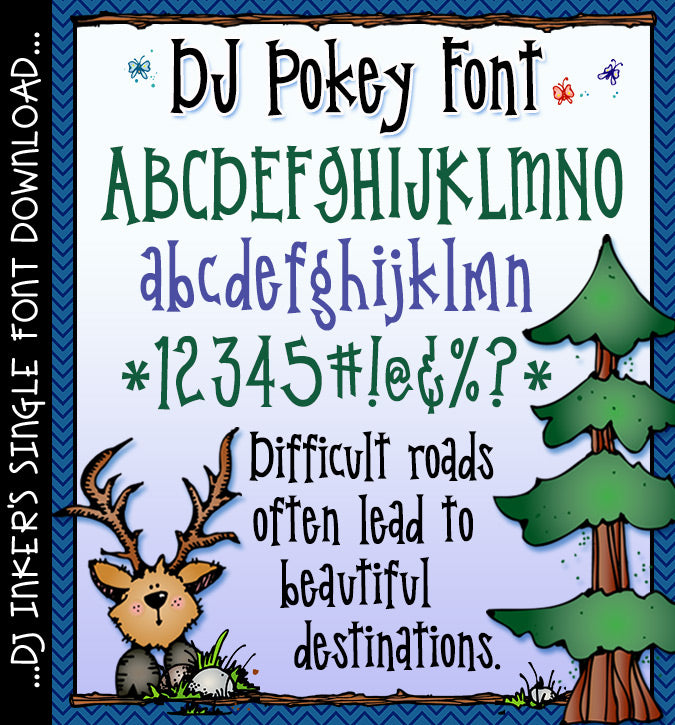
DJ Pokey Font Download
Looking for a typeface that's as bold as your ideas? DJ Pokey strikes the perfect balance between clean, sharp lines and a playful charm that will really make your projects pop! Whether you're designing DIY home decor or a standout school flyer, this font delivers a professional look without losing the fun. Type up a smile with DJ Inkers and give your next project the "edge" it deserves!